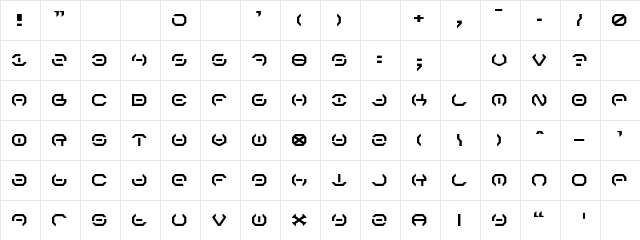
Alpha Sentry Regular
Design Context for Alpha Sentry
Alpha Sentry is a composed and adaptable typeface that performs quietly and consistently across a wide range of design contexts.
Pro Tip: Use Alpha Sentry in both headline and body roles to test its range before committing to a single application.